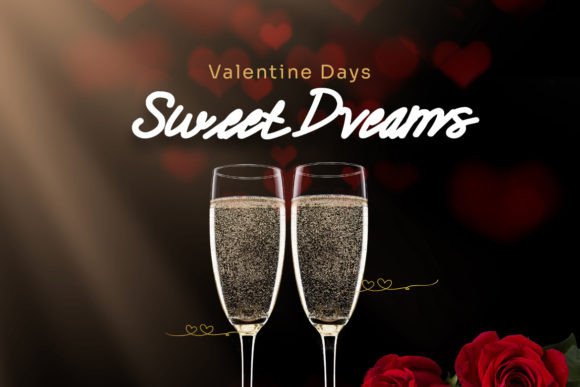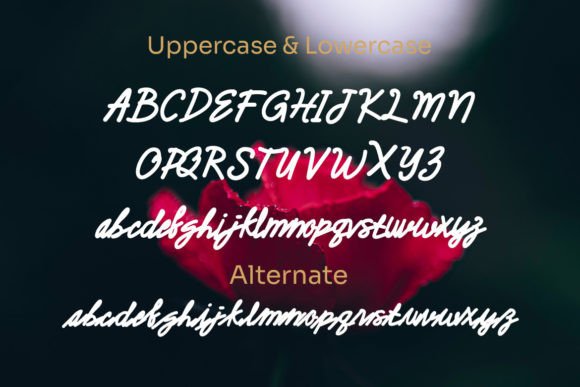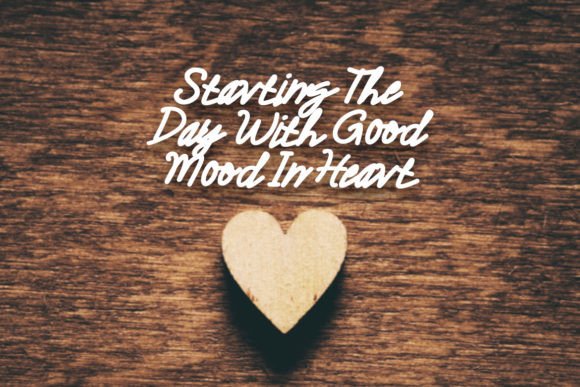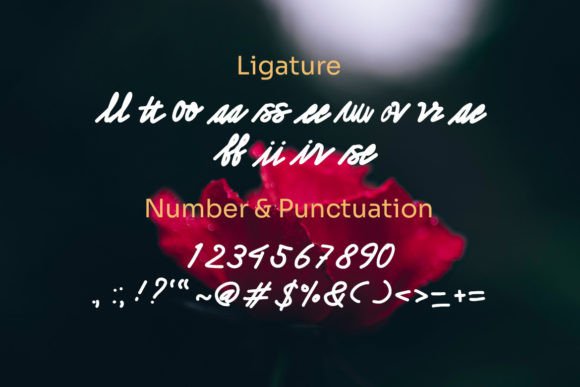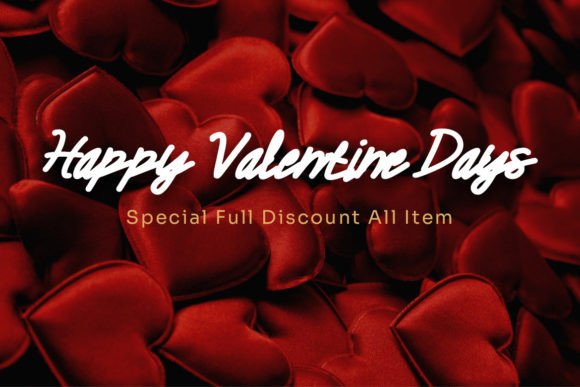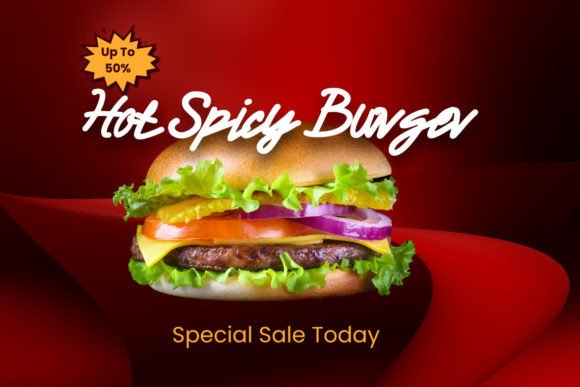
Introducing the Exquisite Bagitto Herros Font: Elevate Your Designs with Elegance
In the world of typography, few fonts manage to capture the essence of luxury and sophistication as effortlessly as the “Bagitto Herros” font. This stunning typeface is designed to add a touch of elegance and charm to any project, making it the perfect choice for designers and crafters looking to elevate their creations. With its flowing curves, graceful lines, and ornate details, Bagitto Herros is a font that exudes refinement and poise.
The Perfect Blend of Style and Sophistication
Bagitto Herros is more than just a font – it’s an experience. Its elegant and flowing curves are reminiscent of classic luxury brands, evoking feelings of high-end quality and sophistication. The font’s design is carefully crafted to provide a sense of fluidity and movement, making it perfect for use in a variety of applications, from invitations and logos to branding and advertising.
One of the standout features of Bagitto Herros is its ornate details. The font’s intricate flourishes and swashes add a level of complexity and visual interest, making it perfect for use in designs where you want to make a statement. Whether you’re creating a logo for a high-end fashion brand or designing an invitation for a luxury wedding, Bagitto Herros is the perfect choice.
Why Choose Bagitto Herros?
So, what sets Bagitto Herros apart from other fonts? Here are just a few reasons why designers and crafters are falling in love with this exquisite typeface:
• Elegance and Sophistication: Bagitto Herros exudes luxury and refinement, making it perfect for high-end designs.
• Versatility: The font’s flowing curves and ornate details make it suitable for use in a wide range of applications, from invitations and logos to branding and advertising.
• Attention to Detail: The font’s intricate flourishes and swashes add a level of visual interest, making it perfect for designs where you want to make a statement.
Using Bagitto Herros in Your Designs
Bagitto Herros is incredibly easy to use, even for designers who are new to working with elegant, cursive fonts. Here are a few tips for getting the most out of this stunning typeface:
• Pair it with a sans-serif font: For a striking contrast, pair Bagitto Herros with a clean, sans-serif font to create visual interest and add depth to your design.
• Experiment with flourishes: Don’t be afraid to get creative with the font’s intricate flourishes and swashes. Use them to add a touch of elegance and sophistication to your design.
• Use it sparingly: While Bagitto Herros is a beautiful font, it’s best used sparingly. Use it for headings, titles, or key messages to create a lasting impression.
Bagitto Herros is a font that’s specifically designed with designers and crafters in mind. Whether you’re creating luxury branding, elegant invitations, or sophisticated advertising, this font is the perfect choice. Its versatility and elegance make it suitable for use in a wide range of applications, from digital designs to print materials.
For designers, Bagitto Herros offers a level of sophistication and refinement that’s hard to find in other fonts. Its intricate details and flowing curves make it perfect for use in high-end designs, while its versatility ensures that it can be used in a wide range of applications.
For crafters, Bagitto Herros offers a level of elegance and charm that’s perfect for adding a touch of luxury to any project. Whether you’re creating handmade cards, invitations, or other paper crafts, this font is sure to impress.
Author Yumnacreative
In conclusion, Bagitto Herros is a truly exquisite font that’s perfect for designers and crafters looking to add a touch of luxury to their creations. Its elegant and flowing curves, ornate details, and sophisticated charm make it the ideal choice for high-end designs. Whether you’re creating luxury branding, elegant invitations, or sophisticated advertising, Bagitto Herros is the perfect choice. So why wait? Download Bagitto Herros today and elevate your designs to new heights of elegance and sophistication!